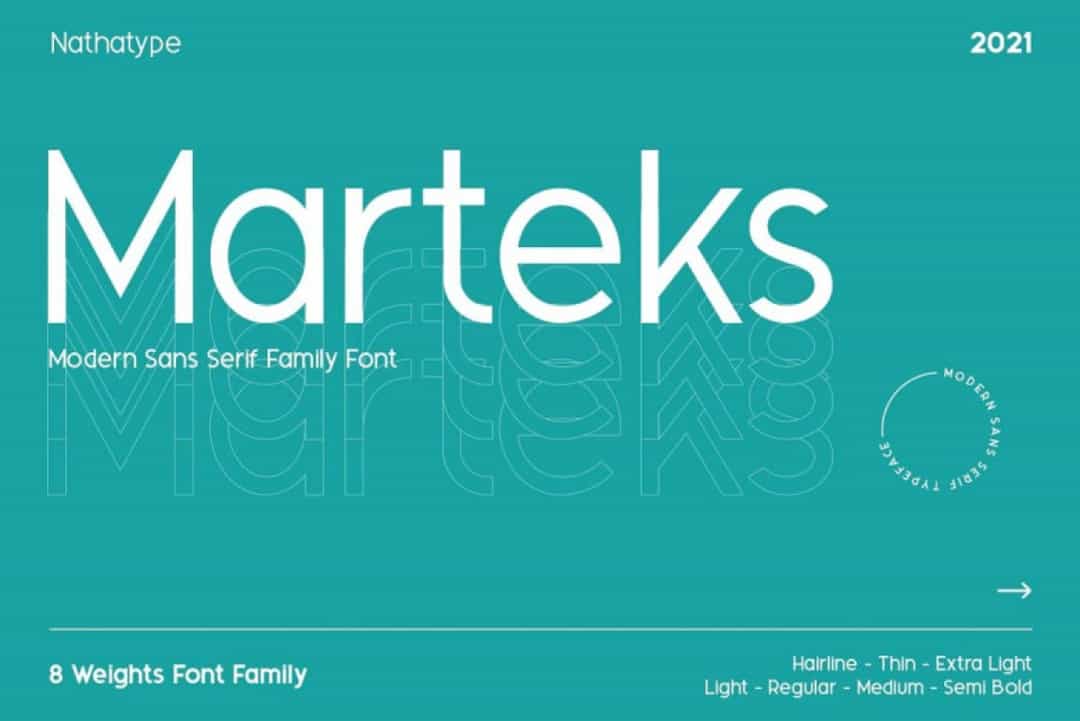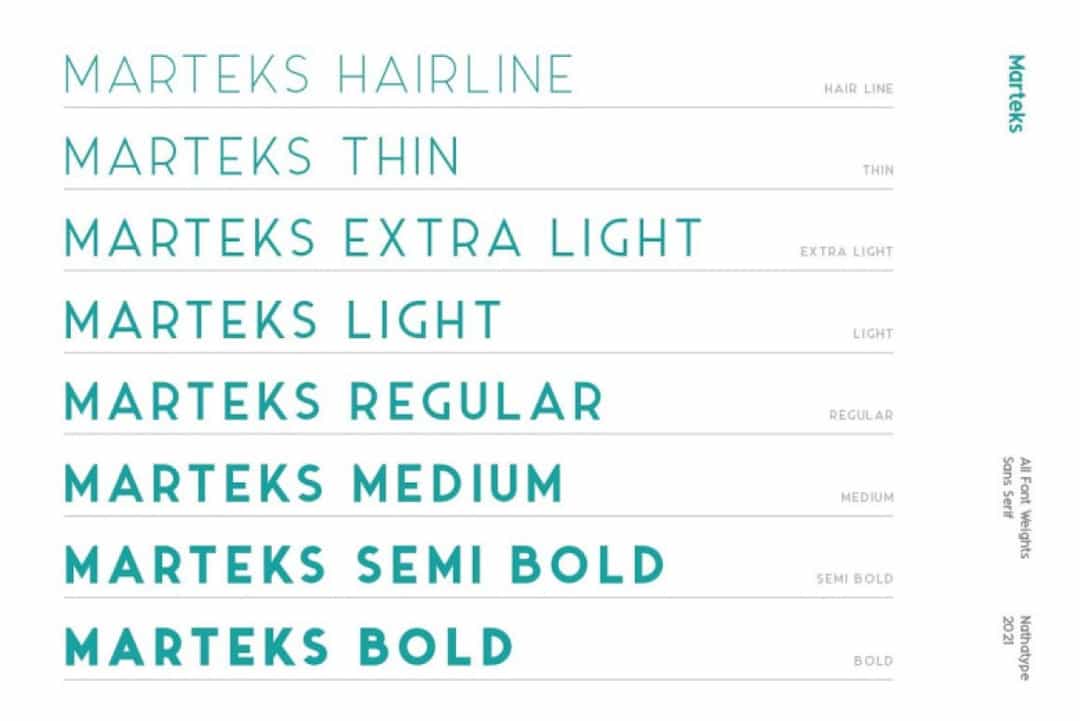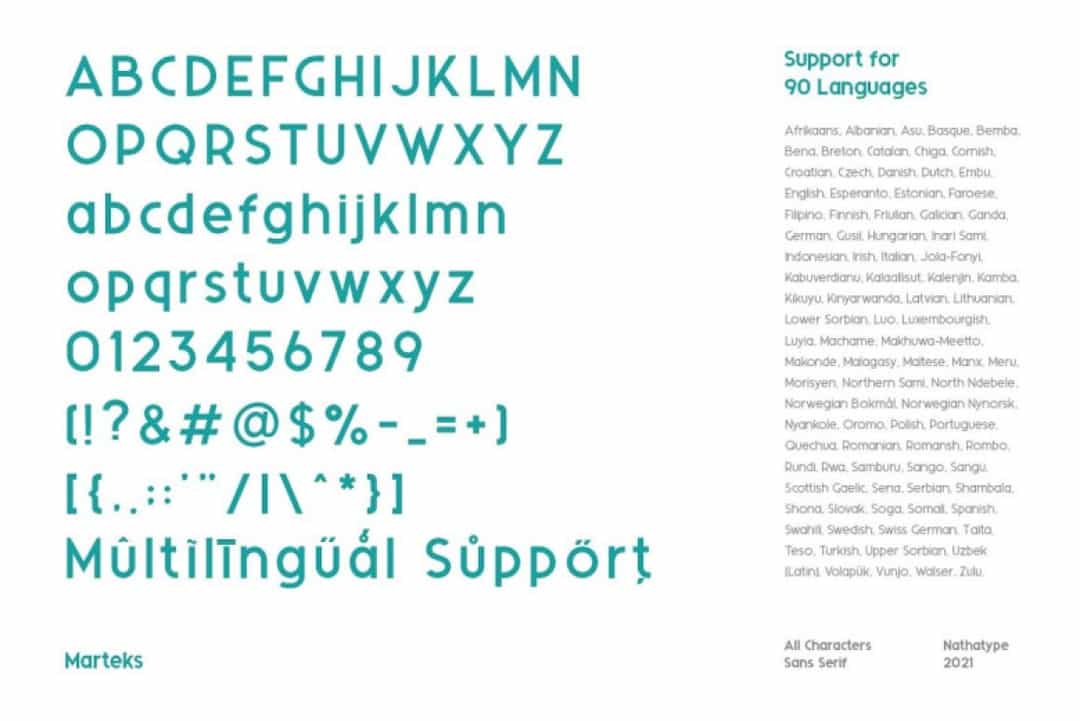
Discover Marteks Font Family, part of the Sans Serif collection—a versatile and unique font perfect for adding a personal touch to your projects. Download it for free and enjoy crafting designs with style, from invitations to social media posts. This font is available exclusively for personal use, giving you the freedom to create without limits. Unlock your creativity with Marteks Font Family today!
Marteks is an exhilarating software package designed to offer you plenty of choices. By customizing your designs with its elegant fonts, Marteks gives you endless creative options that represent modernity and elegance in equal measures.